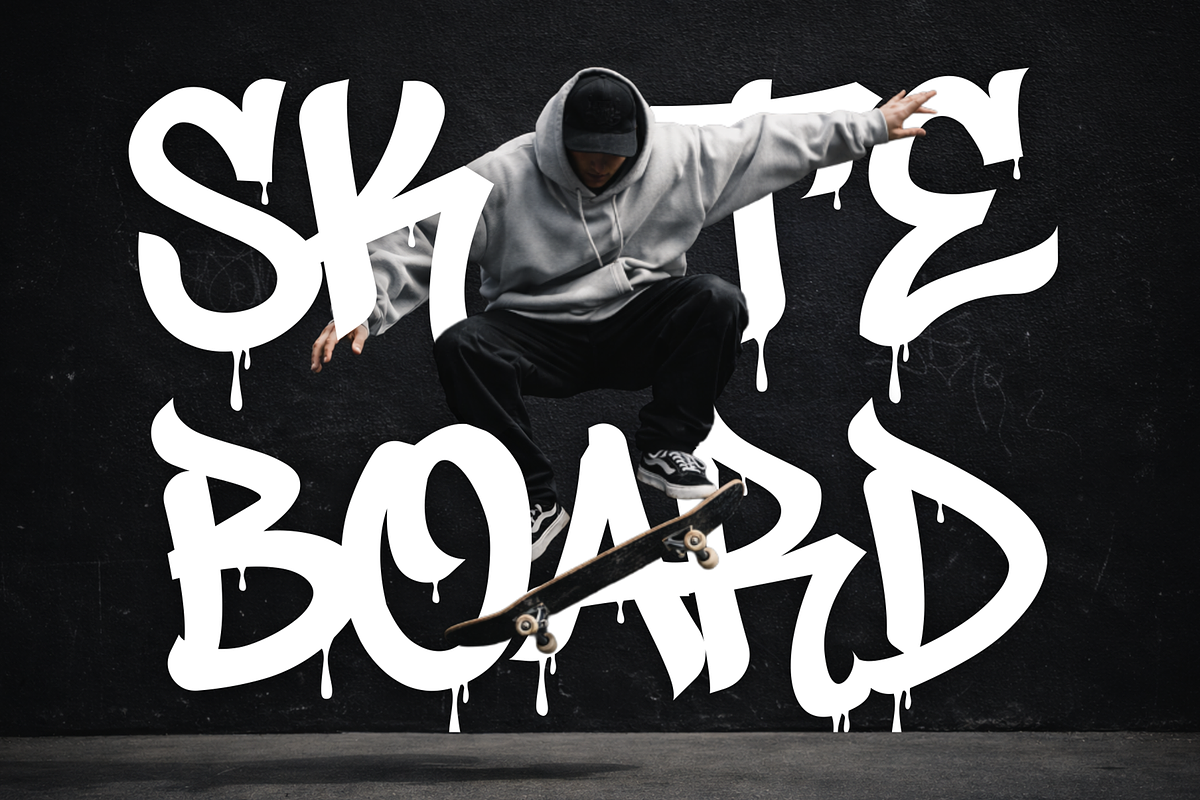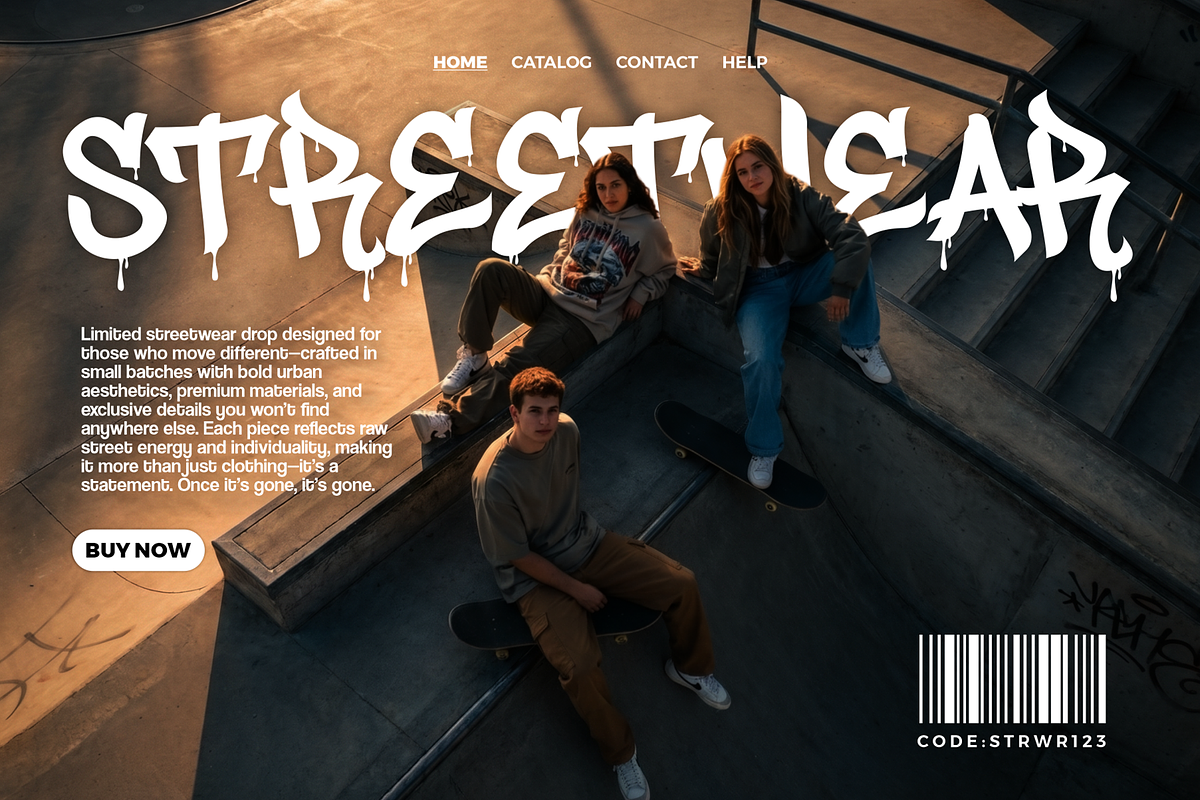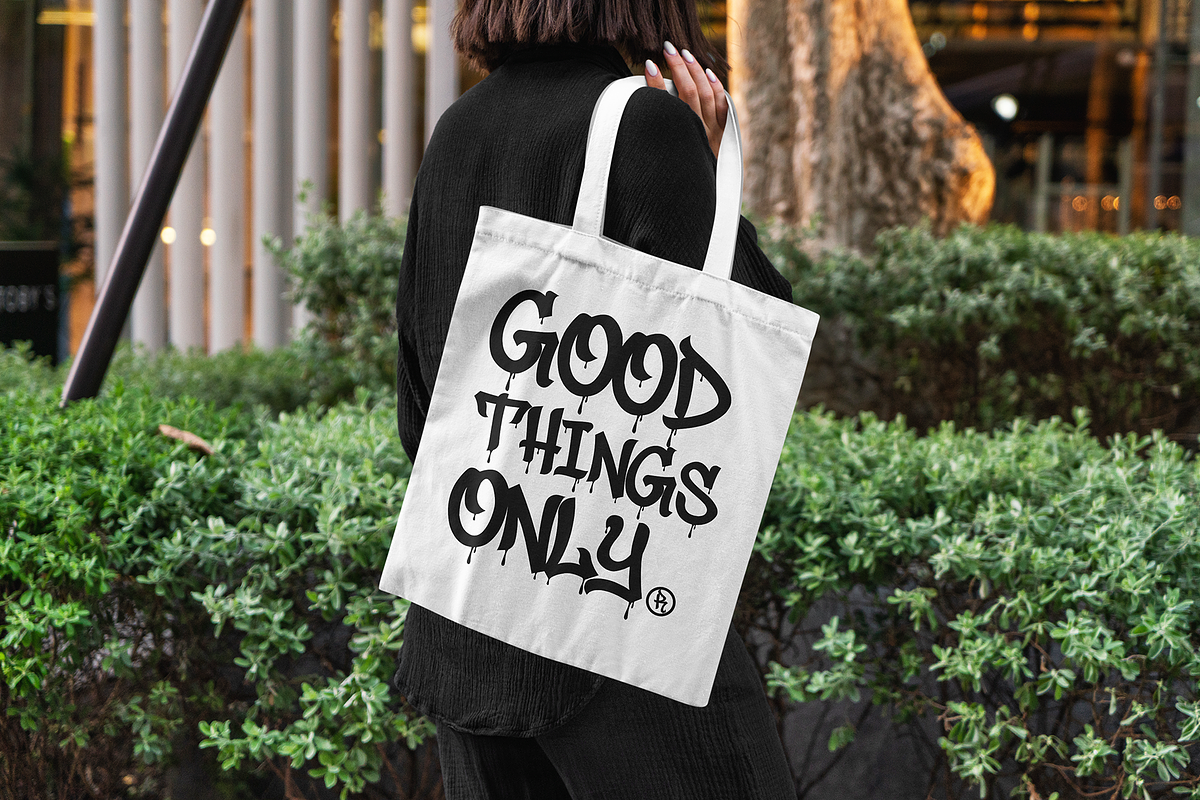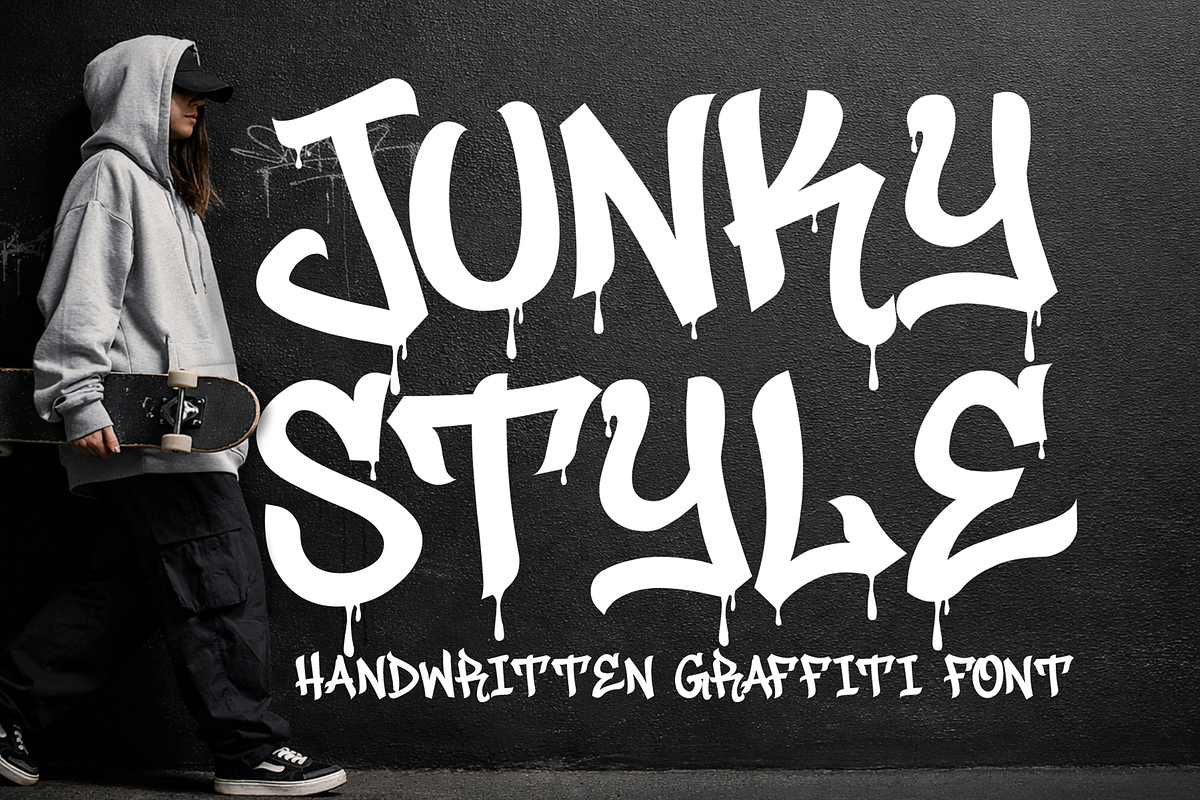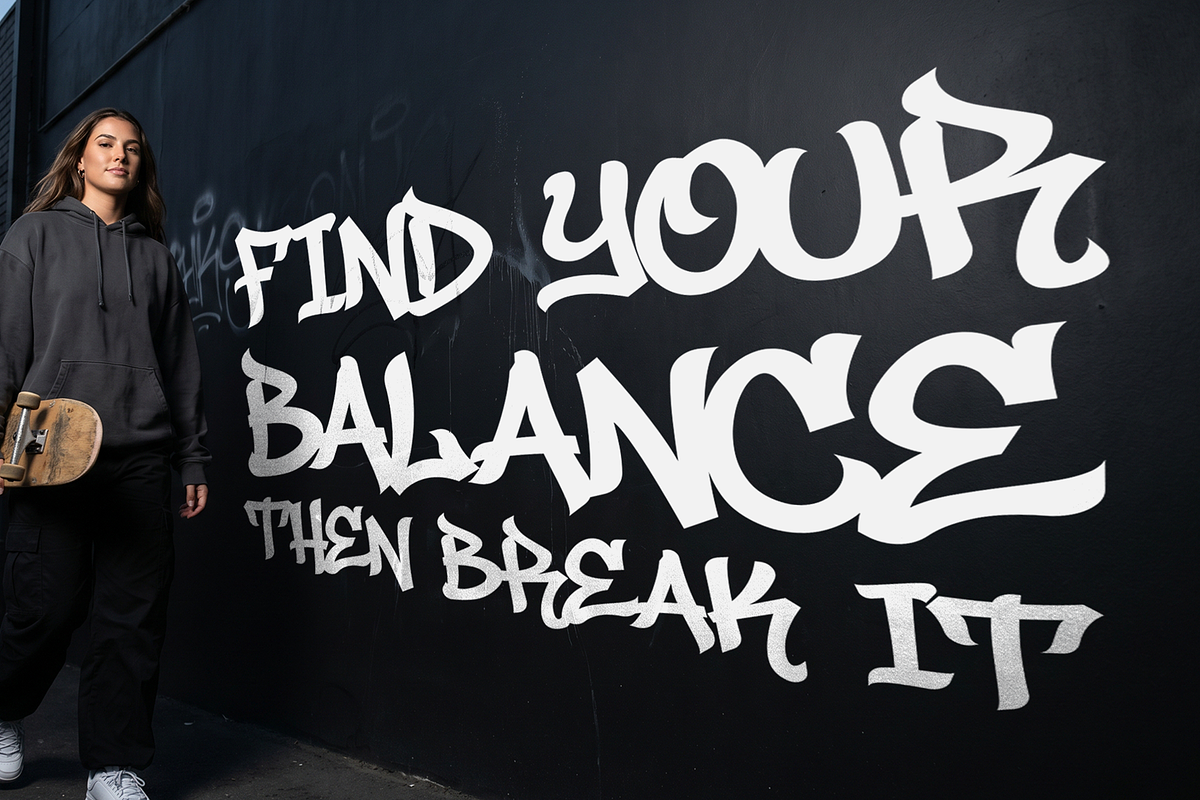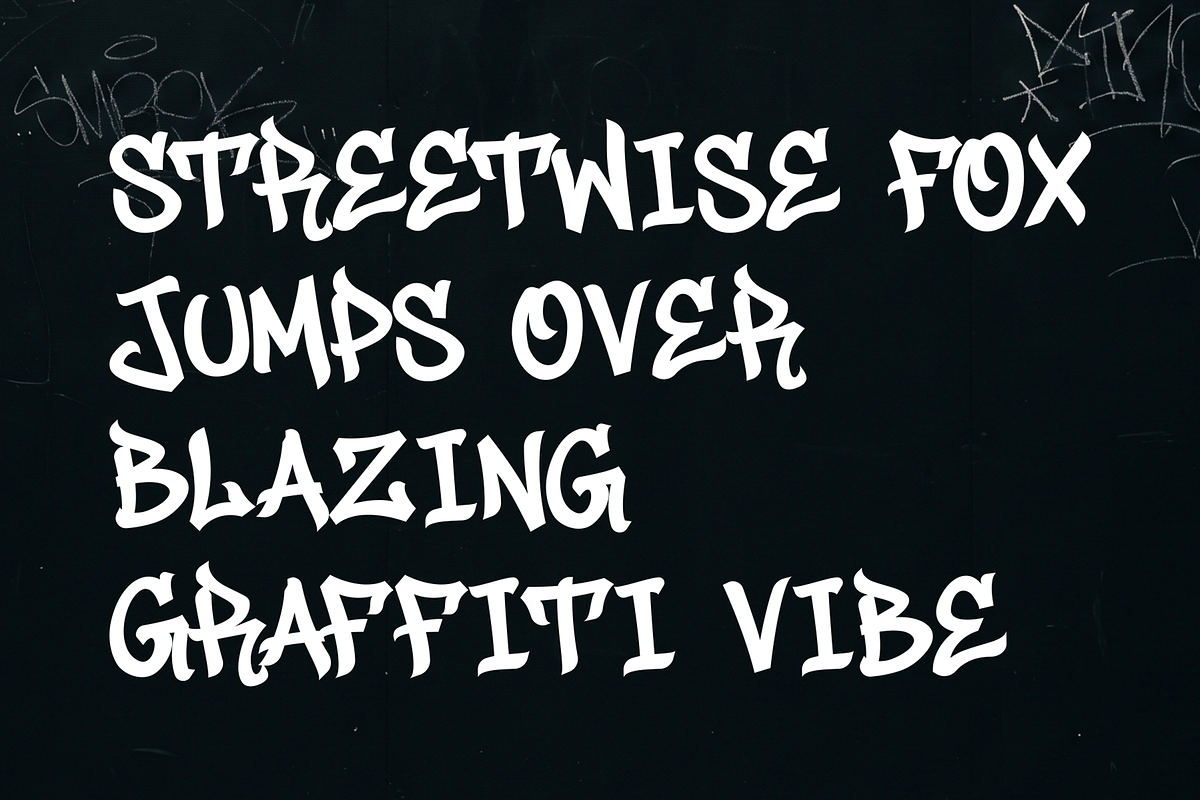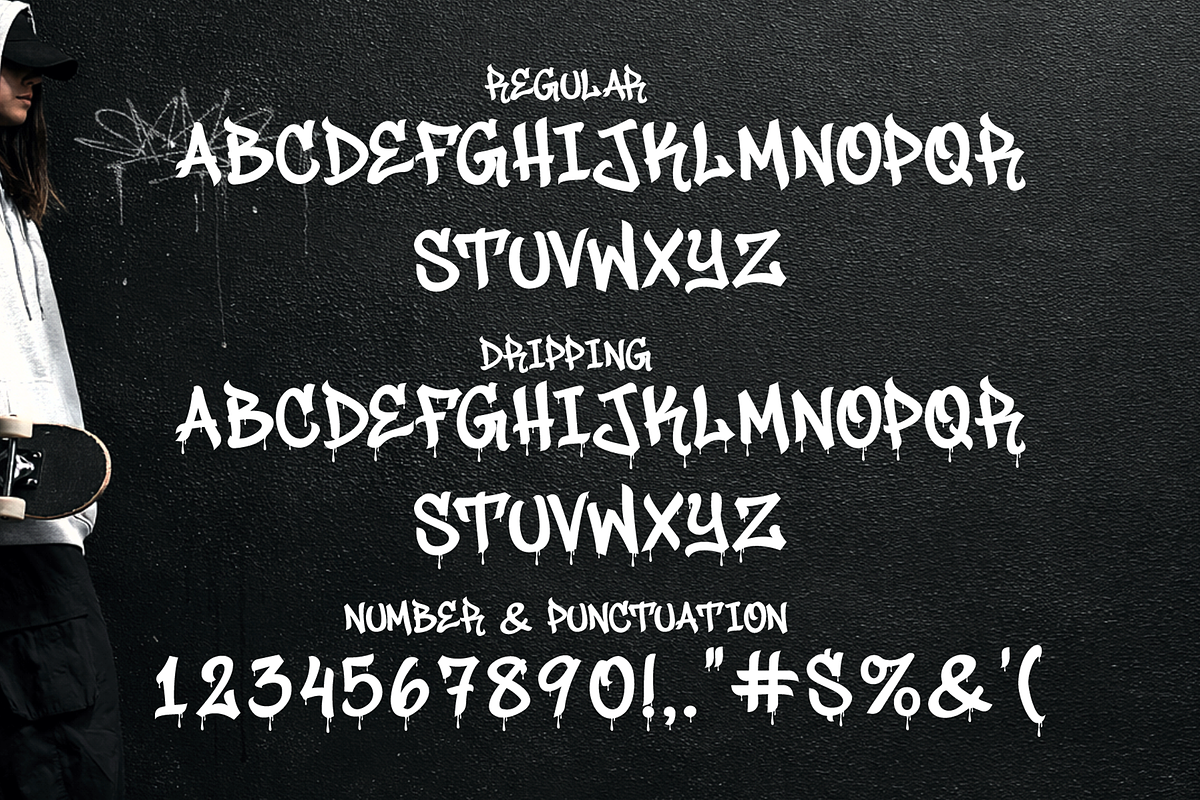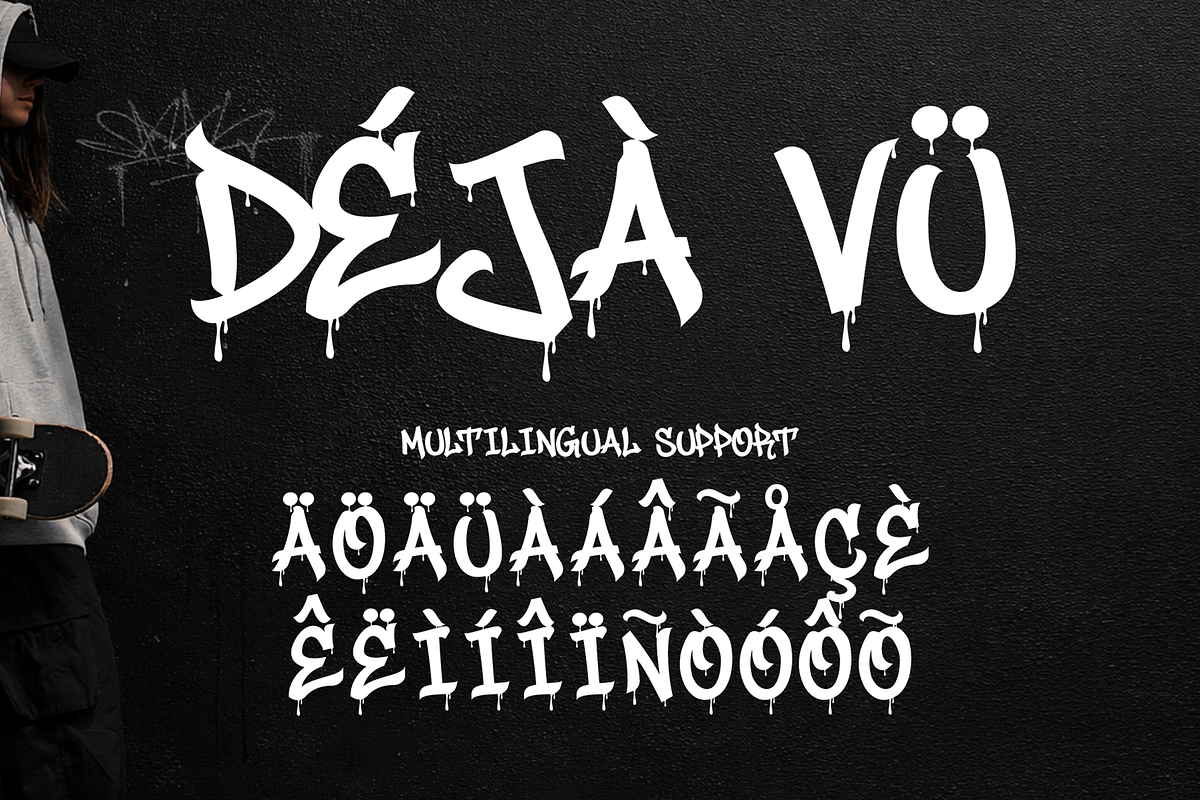
Junky Style - Freestyle Graffiti
Junky Style – Handwritten Graffiti Font is a bold and expressive typeface designed to bring energy and personality into your visual projects. Built with a natural handwritten flow and graffiti-inspired strokes, this font delivers a raw and dynamic look that stands out across both digital and print media.
This font comes with uppercase and lowercase characters, allowing you to create more natural and varied compositions. Whether you’re working on posters, thumbnails, social media graphics, or event promotions, Junky Style provides flexibility while maintaining a strong visual presence.
The included Junky Style Drip version adds an extra layer of expression with dripping details, making it suitable for projects that require a more intense and eye-catching appearance. The combination of clean handwritten structure and graffiti elements makes this font adaptable for different creative directions.
Uppercase & Lowercase Characters – more flexibility for dynamic layouts
Multilingual Support – covers various languages for wider usability
Two Styles Included – regular and drip versions for different visual moods
Handwritten Graffiti Style – natural strokes combined with expressive shapes
Versatile Usage – suitable for posters, flyers, thumbnails, banners, and digital content
Strong Visual Impact – designed to stand out in large and medium-scale text
Designers choose Junky Style for its ability to create expressive and energetic compositions without complex setup. The handwritten structure makes text feel more organic, while the graffiti influence adds character and movement.
The availability of both regular and drip styles allows for quick variation in design direction. This flexibility helps when working on multiple assets within the same project, such as combining clean headlines with more expressive accents.
Multilingual support ensures the font can be used across different regions and audiences, making it suitable for global campaigns. The font also integrates smoothly into various workflows, whether for quick social media graphics or detailed print layouts.
Junky Style – Handwritten Graffiti Font is built for projects that require strong expression and clear visibility. With its combination of handwritten flow, graffiti influence, and dual-style options, it gives you the tools to create bold and engaging typography. Add it to your collection and start building visuals that capture attention and communicate with impact.